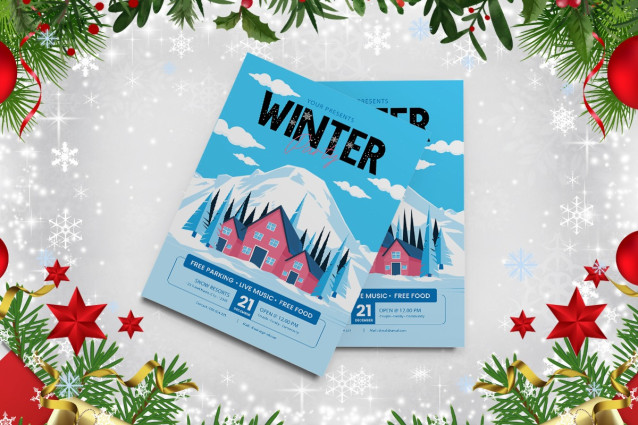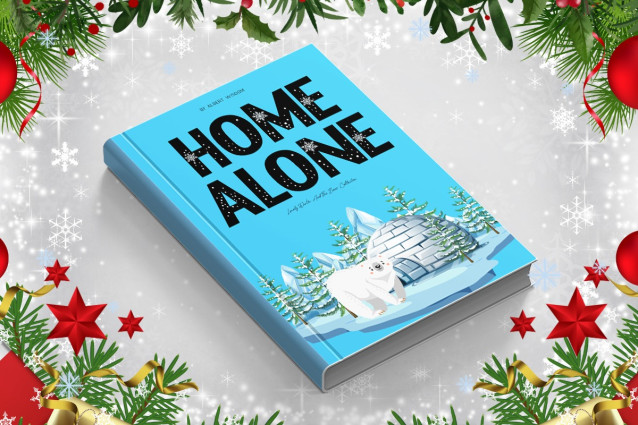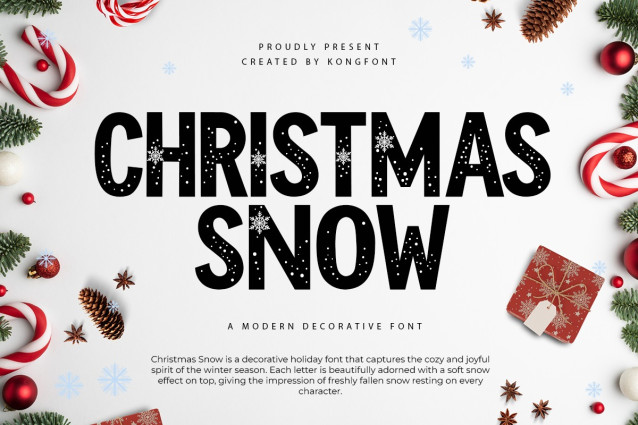
Christmas Snow Font
Christmas Snow Font  A Modern Decorative Christmas Font is a part of the display fonts. This font is one of the best collections of Christmas fonts that you can check out on the Kong Font website. This font has unique characteristics, is beautiful, and looks fun. Also, we can see how Christmas Snow A Modern Decorative Christmas Font is in illegible font. This font has some Christmas decorations in the shape. The characteristics description of Christmas Snow A Modern Decorative Christmas Font above shows how this font looks so unique and cute. The unique characteristic is the difference between the Christmas Snow A Modern Decorative Christmas Font and other fonts. This font can be used with small or large font sizes. The excellent impression and characteristics of Christmas Snow A Modern Decorative Christmas Font can make it one of the best Christmas fonts that can be used for clothing item designs such as writing on hoodies, t-shirts, and hats. Snow Boom font can be used for a logo that has a Christmas or cartoon theme. Like the previous font choices, Christmas Snow A Modern Decorative Christmas Font can be used digitally or in print. Our Display fonts collection is compatible to use as Figma fonts, Canva fonts, Freepik Fonts, and Adobe Fonts. They also work as Windows Fonts and Apple Fonts. For your social media needs, you can use and install fonts in our collection of Display fonts to use as Instagram Fonts, Facebook Fonts, and Twitter Fonts.